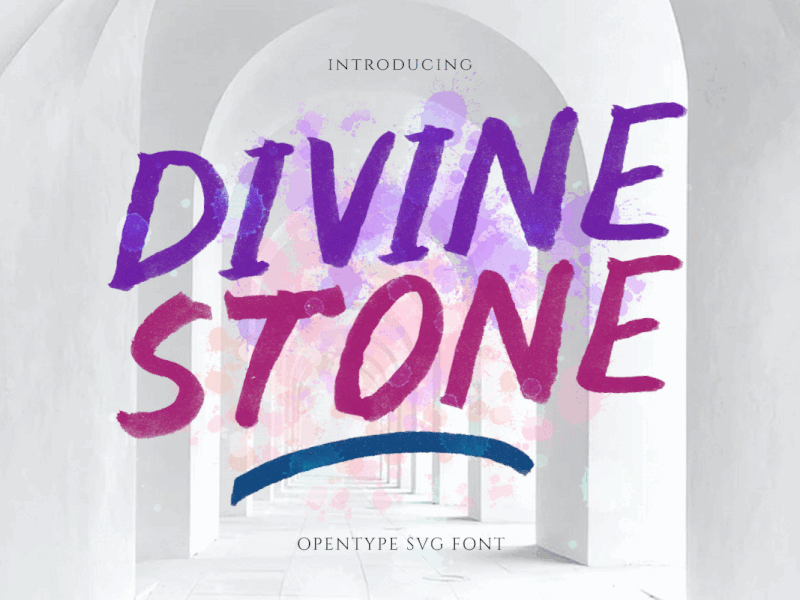
Divine Stone-SVG Font
Introducing, Divine Stone – A brush display font. This font has unique shape with watercolor brush effect, very catchy for fresh and playful theme design. This font also perfectly made to be applied especially in logo, and the other various formal forms such as invitations, labels, logos, magazines, books, greeting / wedding cards, packaging, fashion, make up, stationery, novels, labels or any type of advertising purpose.
uppercase and lowercase
numbers and punctuation
multilingual